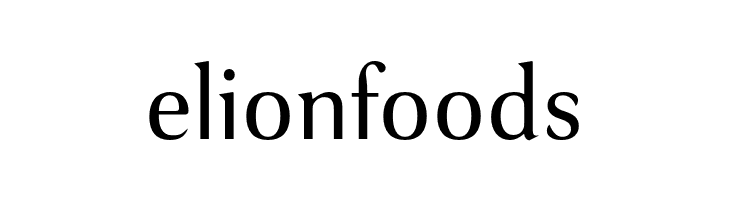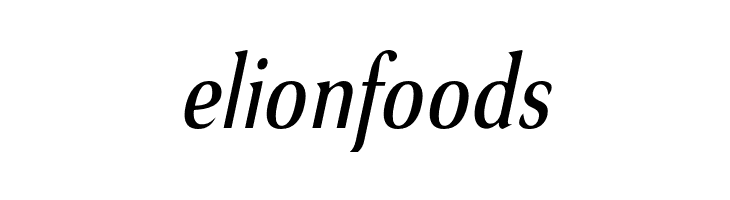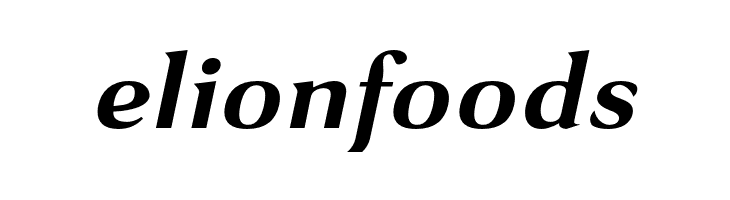
A classic serif font with elegant strokes and excellent readability.
A bold serif font with strong, thick strokes and slightly condensed letterforms.
A bold, italicized font with moderate contrast and a modern yet classic style.
An elegant italic font with moderate contrast and a sophisticated style.
A classic serif font with elegant strokes and balanced proportions.
A bold serif typeface with high contrast and strong, classic serifs.
A bold and italicized font with a dynamic and elegant style.
An elegant italic font with balanced proportions and classic styling.
A refined serif font with elegant, balanced proportions and a timeless quality.
A bold, heavy serif font with a classic and authoritative style.